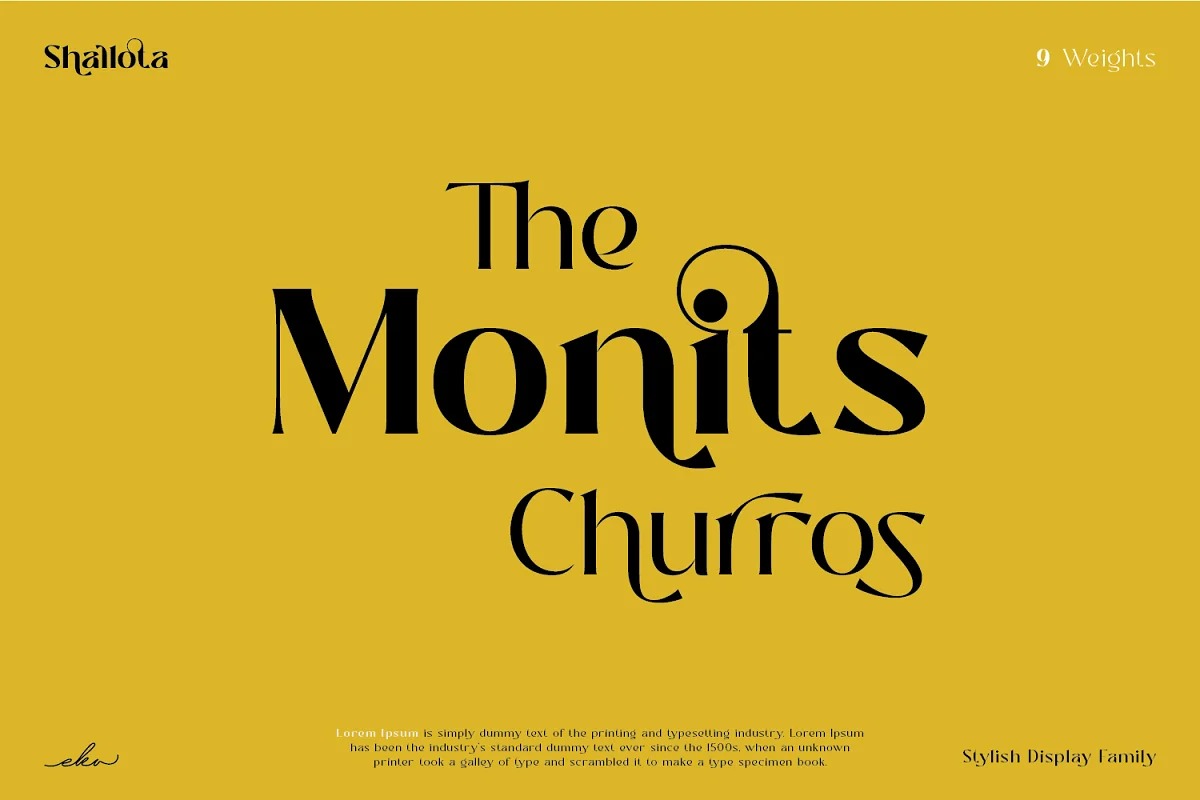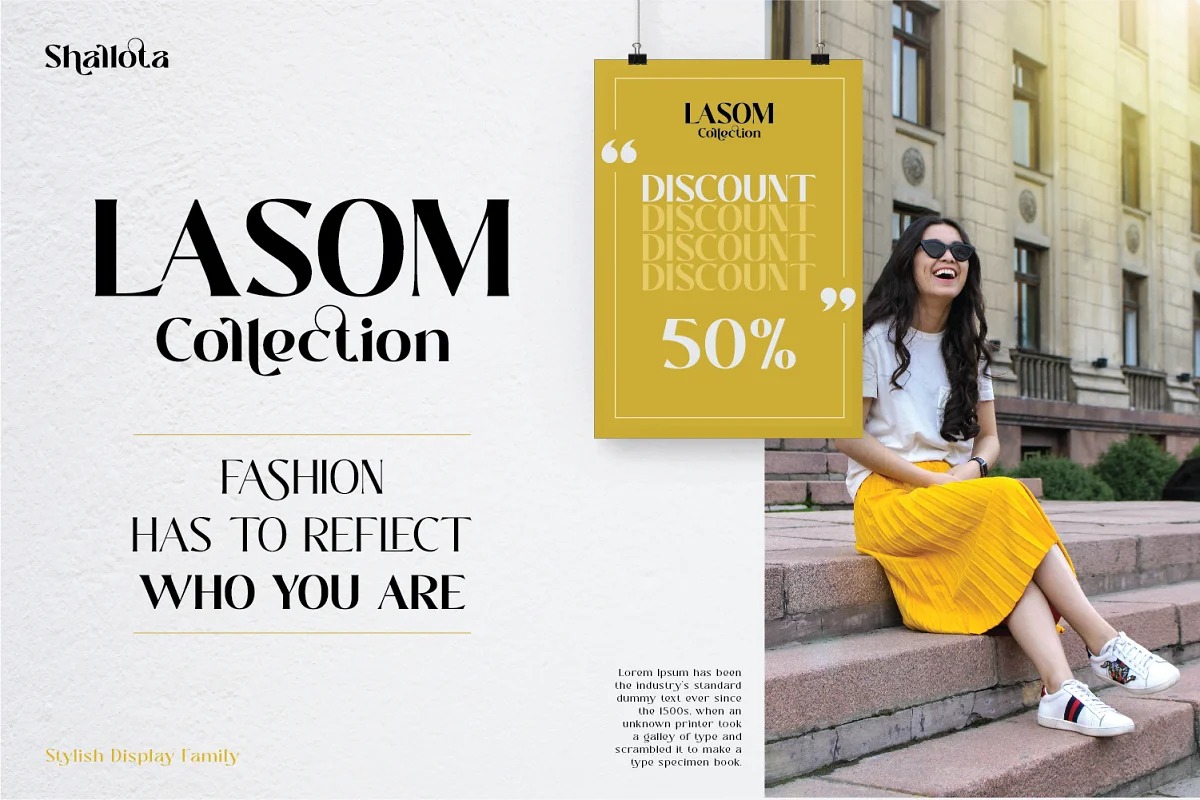
Shallota Font
Shallota Sans Serif Font
It’s retro bold sans serif with ligature & alternates. Made from font designer named Ekahermawan. Shallota also includes a bunch of alternate characters (PUA Encoded) and ligatures to give you a wide range for create an unique typographic design results. Shallota is versatile font for many different projects such as logo, branding, poster, magazines, labels, merchandise, invitation, presentation, advertising, quotes and so much more!